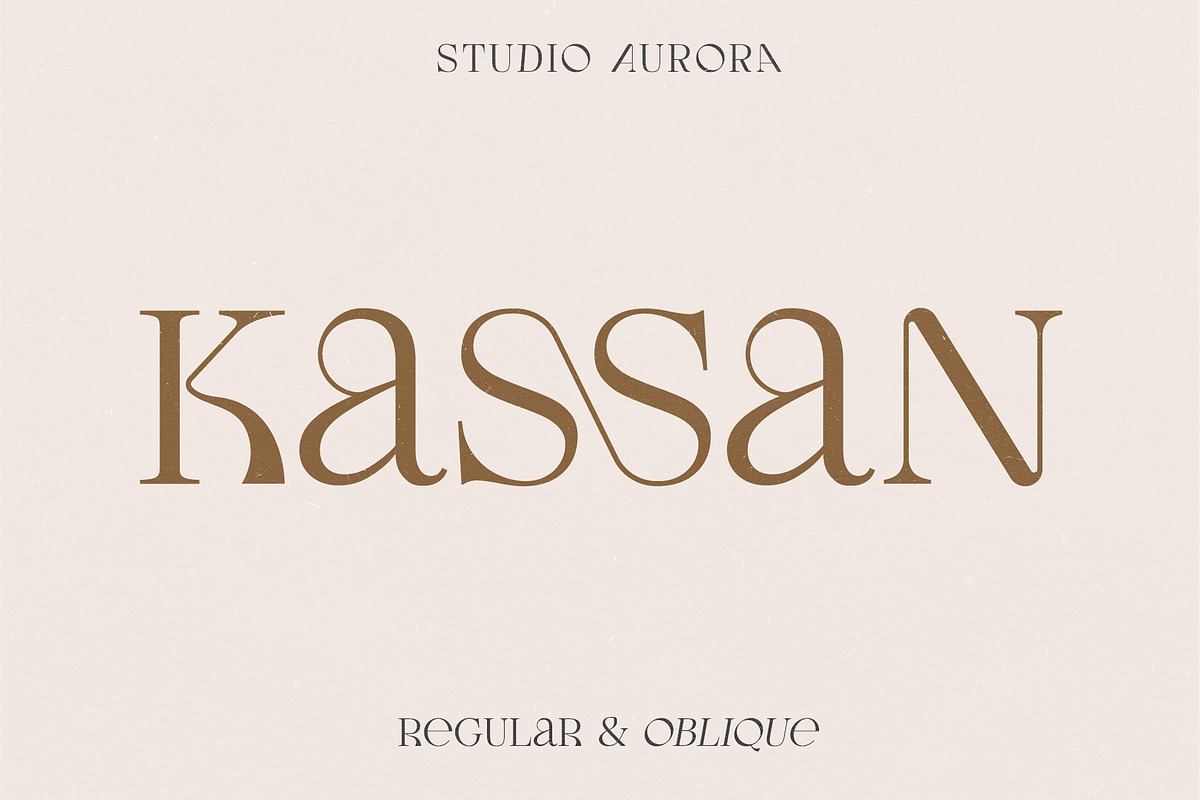
Kassan - Luxury Display Serif Font Free Download
Kassan - Luxury Display Serif Font Free Download is a refined and elegant typeface designed to convey sophistication and luxury. Featuring bold, high-contrast serifs and stylish proportions, this font is perfect for high-end branding, editorial design, product packaging, and upscale marketing materials.
Its timeless and classy aesthetic makes it ideal for projects that demand a touch of elegance, whether it's for fashion brands, exclusive events, or luxury products. Kassan's strong yet graceful design ensures that your typography stands out with prestige and style.